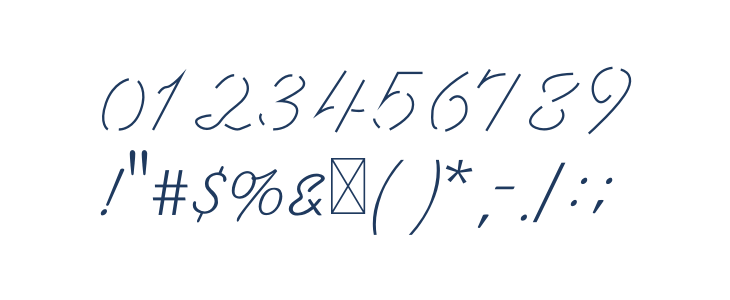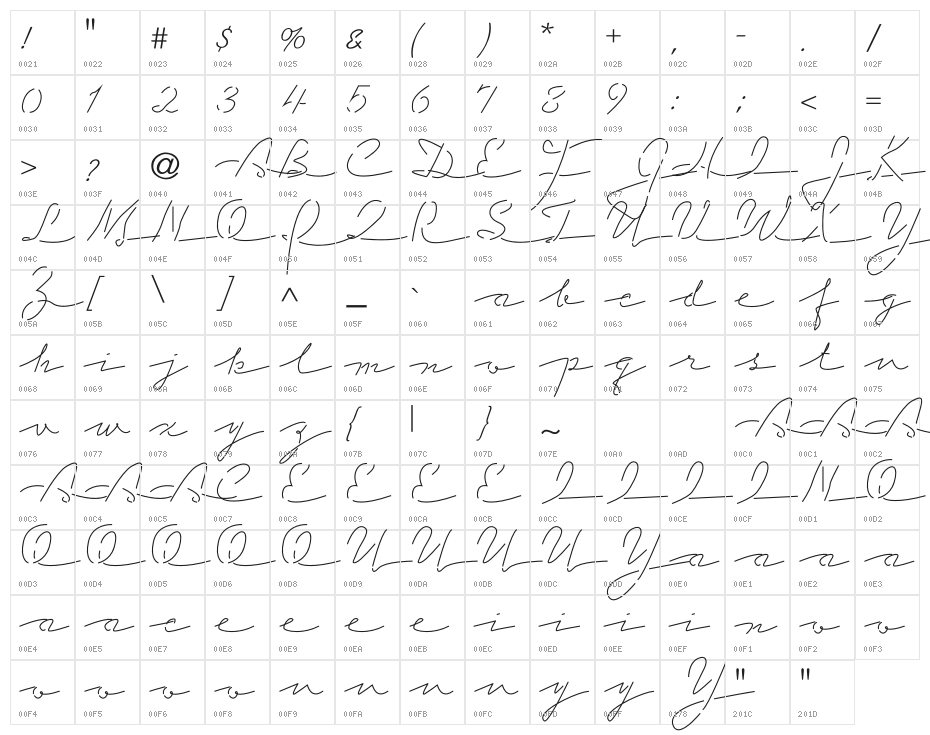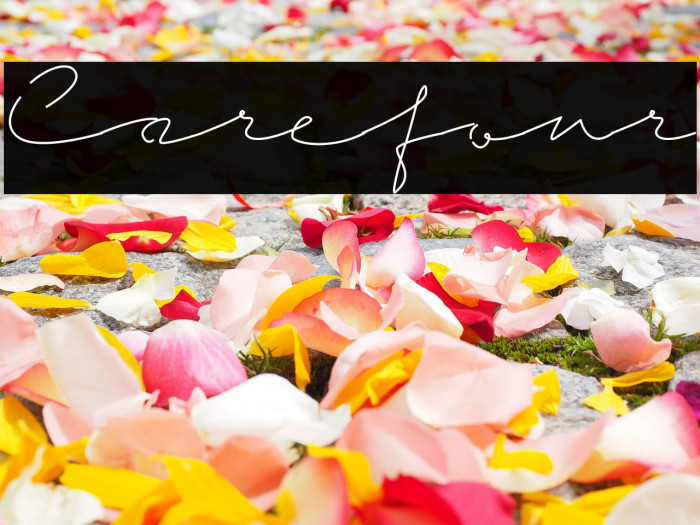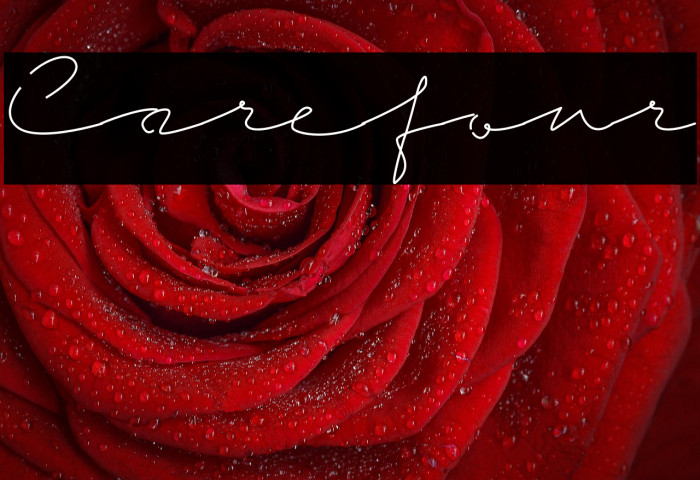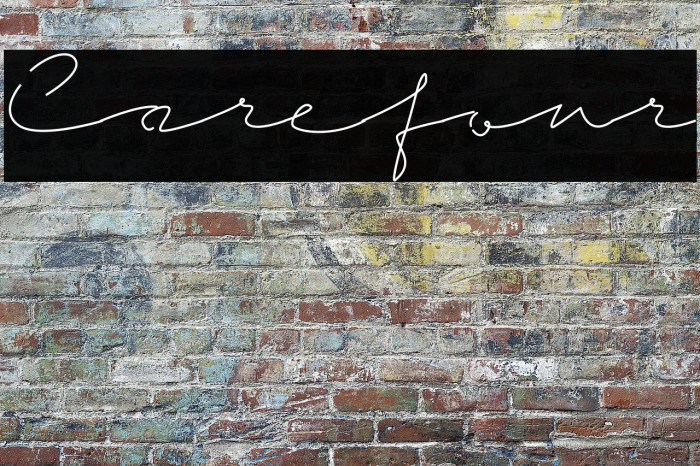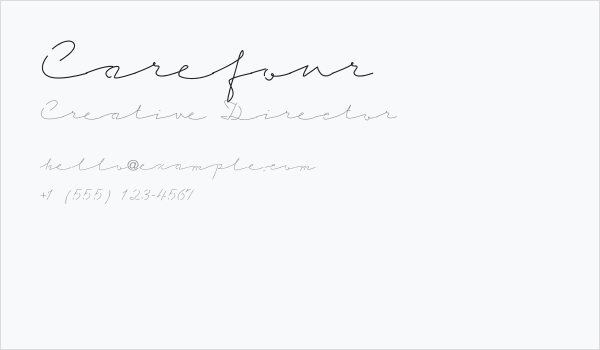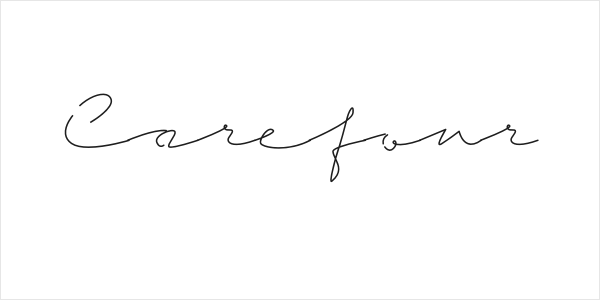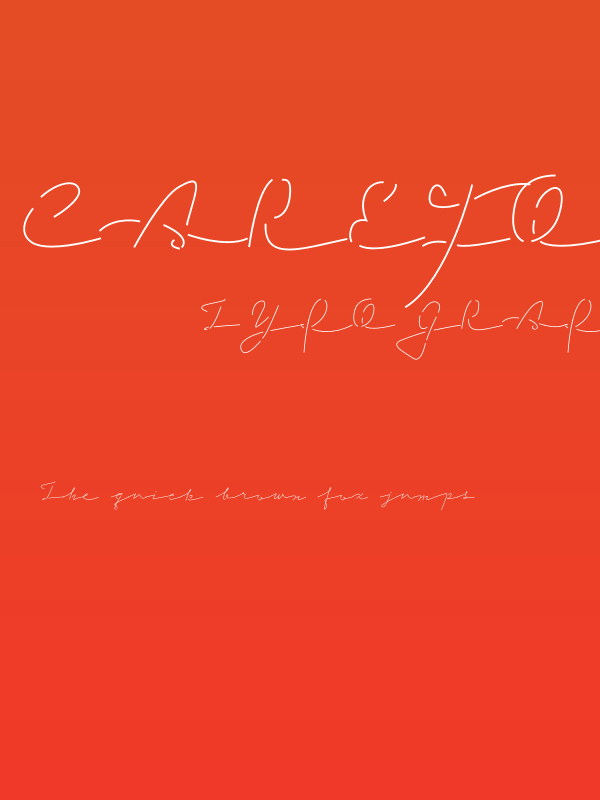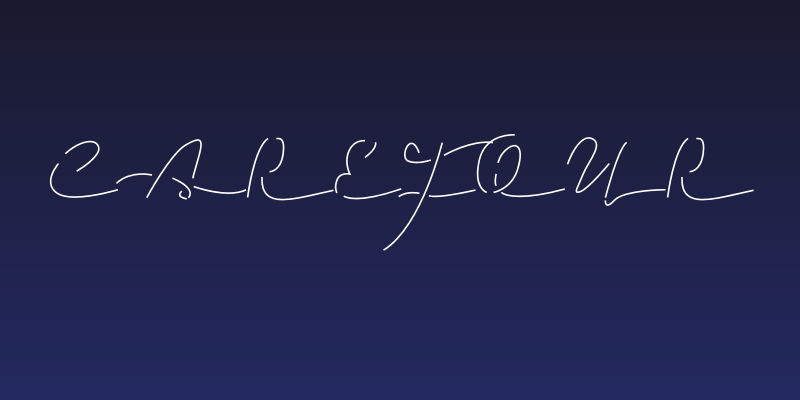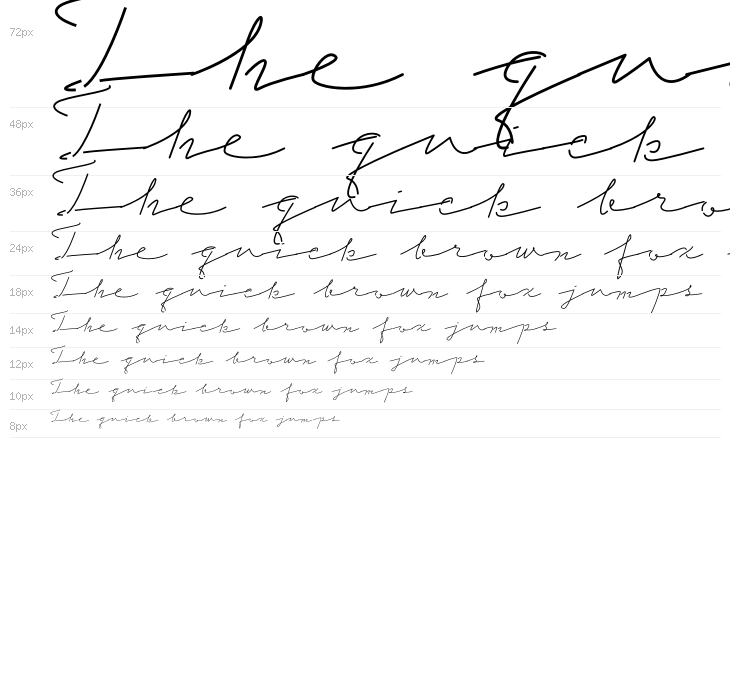
Carefour Font
Carefour Description
This elegant script font features a flowing, cursive style with delicate, thin strokes that convey a sense of grace and sophistication. The characters are interconnected, creating a seamless and fluid appearance. The uppercase letters are slightly more ornate, with subtle flourishes that enhance their visual appeal. The lowercase letters maintain a consistent slant, contributing to the overall harmony of the design. Numbers and special characters are crafted with the same attention to detail, ensuring uniformity across all elements. This font is ideal for projects that require a touch of elegance and refinement.
| Overall Style | Elegant |
| Use Case | Logos, Invitations, Branding |
| Proposed Projects | Wedding invitations, elegant branding, personal stationery, and luxury product packaging. |